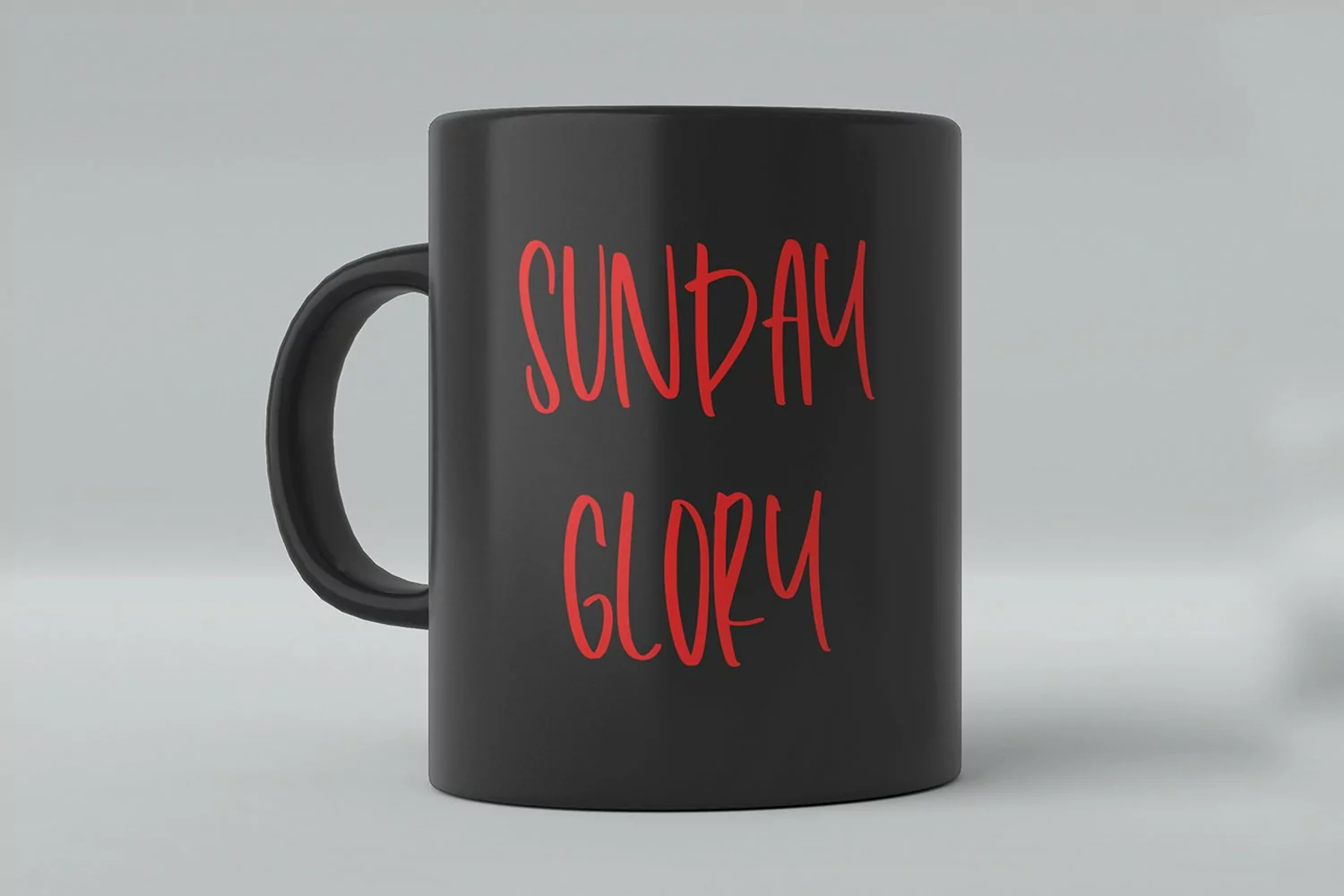
Watercress - Modern Handletter Font that contain lowercase, uppercase, symbol, and also support multi language. There’s a lot ligatures in this font. This Font also comes with ligatures, alternates and many more. this font suitable for fashion, branding, catalog and other design what you want.